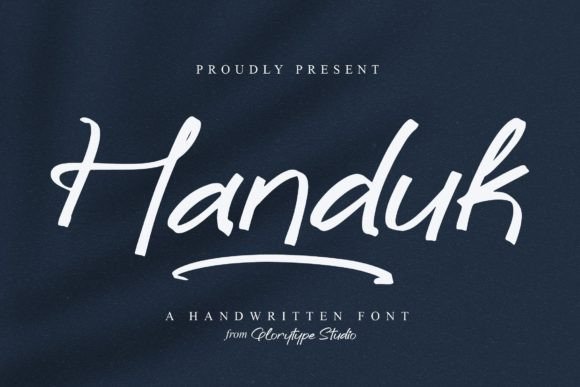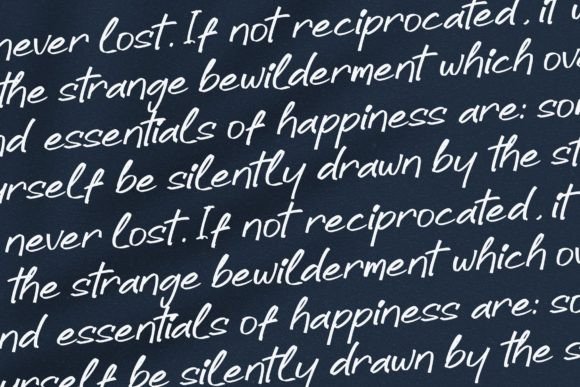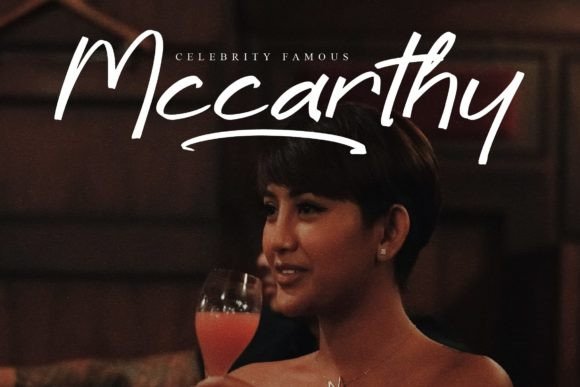
About Handuk Font
“Handuk” is described as a magical handwritten font meticulously crafted to infuse a touch of elegance into your designs. Whether you’re in search of fonts for Instagram posts or calligraphy scripts for DIY projects, “Handuk” is presented as a versatile font that can transform any creative idea into a true piece of art.
The use of the term “magical” suggests an enchanting and captivating quality in the design of the font. Handwritten fonts with a magical touch often convey a sense of wonder and uniqueness, making them suitable for projects where a touch of enchantment is desired.
The emphasis on giving a touch of elegance indicates that “Handuk” is designed to bring a refined and sophisticated aesthetic to your designs. Handwritten fonts with an elegant flair are versatile, suitable for a range of applications, including social media posts, branding materials, or any project where a touch of sophistication is desired.
The mention of Instagram and calligraphy scripts suggests the font’s adaptability to various design contexts. Whether you’re crafting engaging social media content or working on DIY projects that involve calligraphy, “Handuk” is positioned as a font that can seamlessly fit into these scenarios.
In essence, “Handuk” is presented as more than just a font—it’s a design tool capable of adding a magical and elegant touch to your creative endeavors. As you wield this font in your projects, it has the potential to turn ordinary ideas into true pieces of art, creating a visual impact that resonates with elegance and creativity.